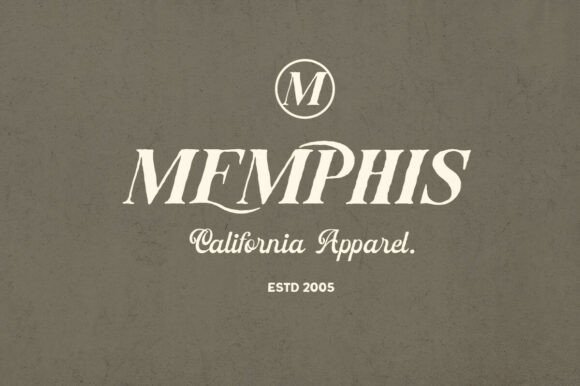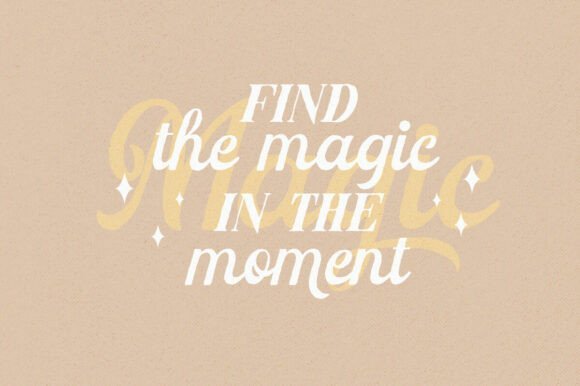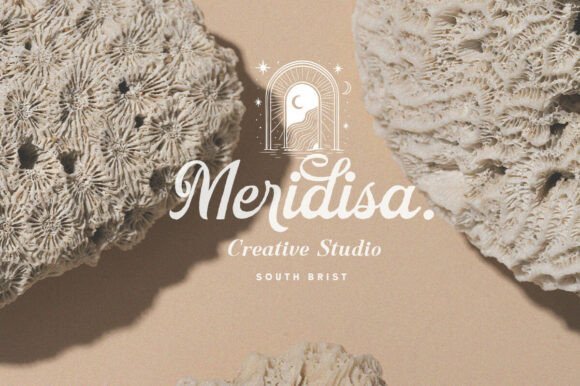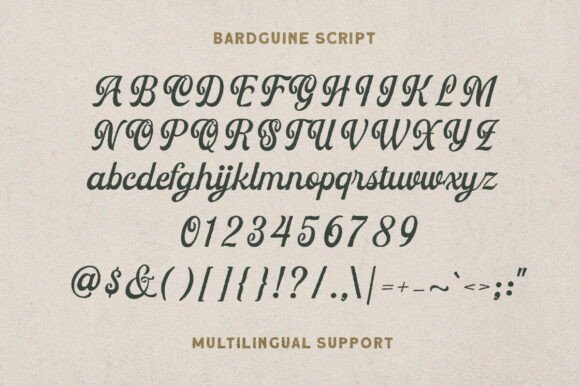
Bardguine Serif & Script Duo Font Font
Bardguine is a charming handwritten font duo that blends the sophistication of a vintage serif with the fluidity of an elegant script. Designed with artisanal flair, the script variant showcases graceful, sweeping ligatures and bold strokes, giving a handcrafted impression, while the serif counterpart offers balance with its sturdy, clean letterforms. The pairing creates striking visual contrast, perfect for branding, logos, editorial headers, packaging, or retro signage. With a touch of nostalgic charm and modern refinement, Bardguine delivers versatility and warmth, ideal for designers looking to make an impactful yet personal statement.With PUA encoding included, all special characters and decorative elements are easily accessible without additional software.